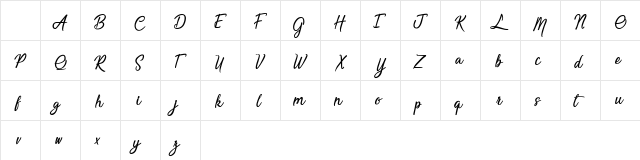
Complete Saturday be like Madness Regular glyph index. Displaying only characters natively supported by Saturday be like Madness Regular font.
Saturday be like Madness is a composed and adaptable typeface that performs quietly and consistently across a wide range of design contexts.